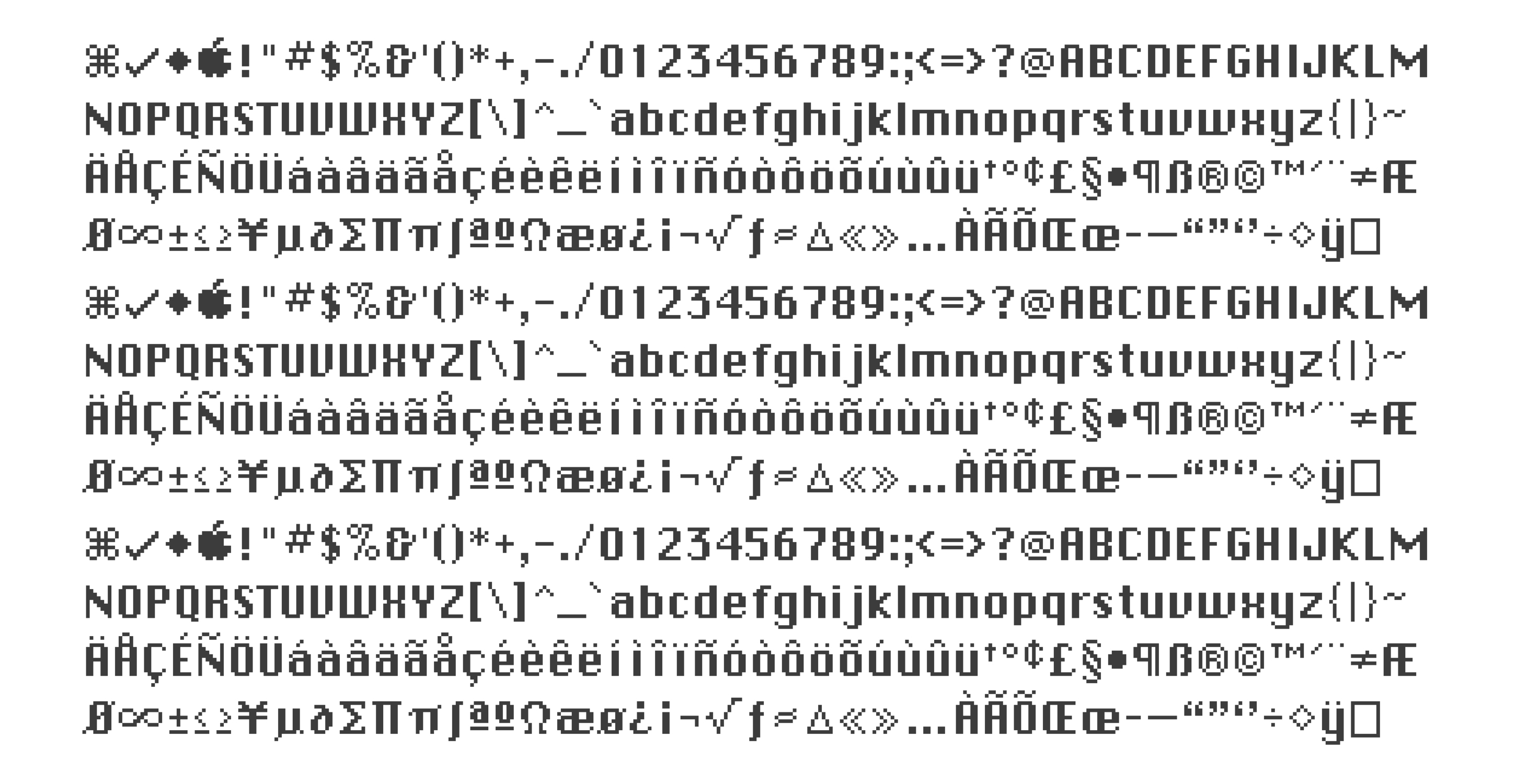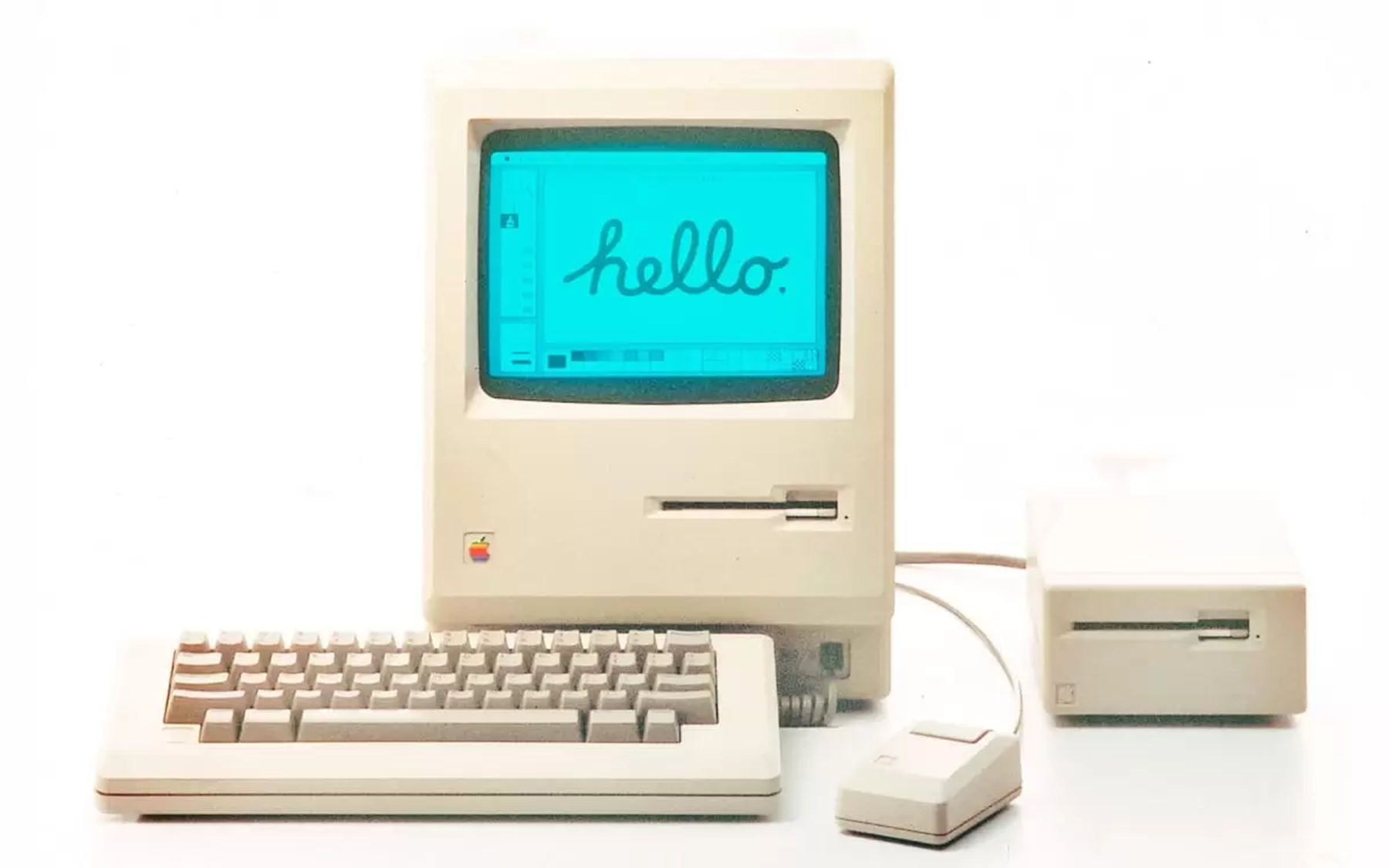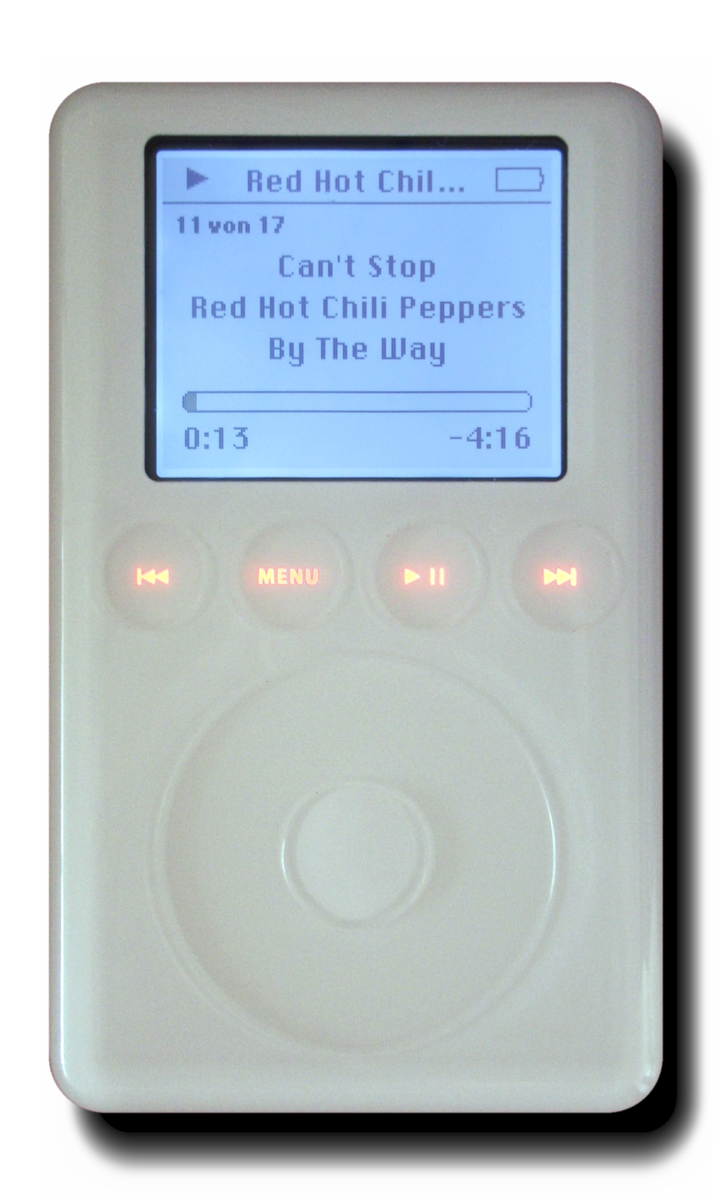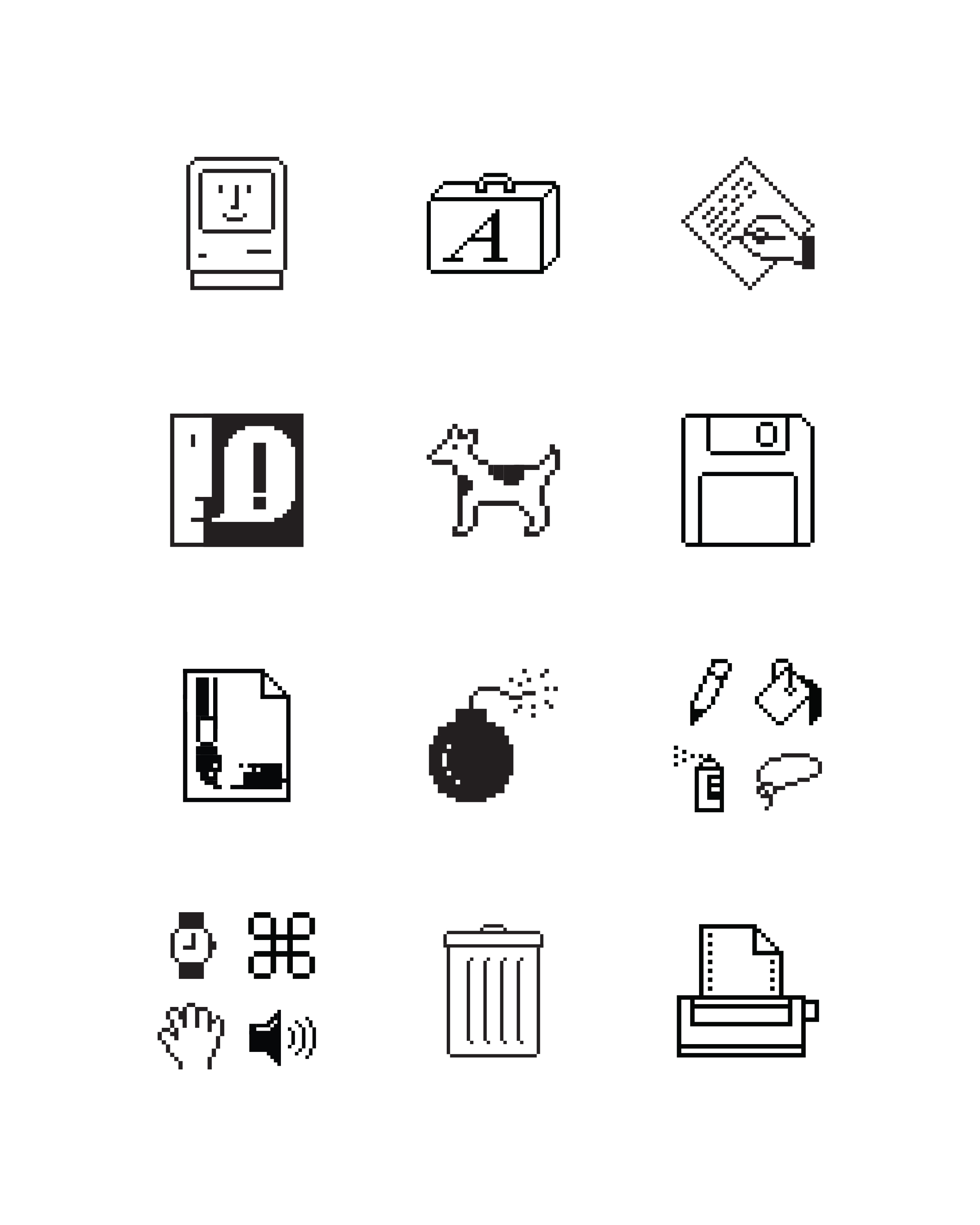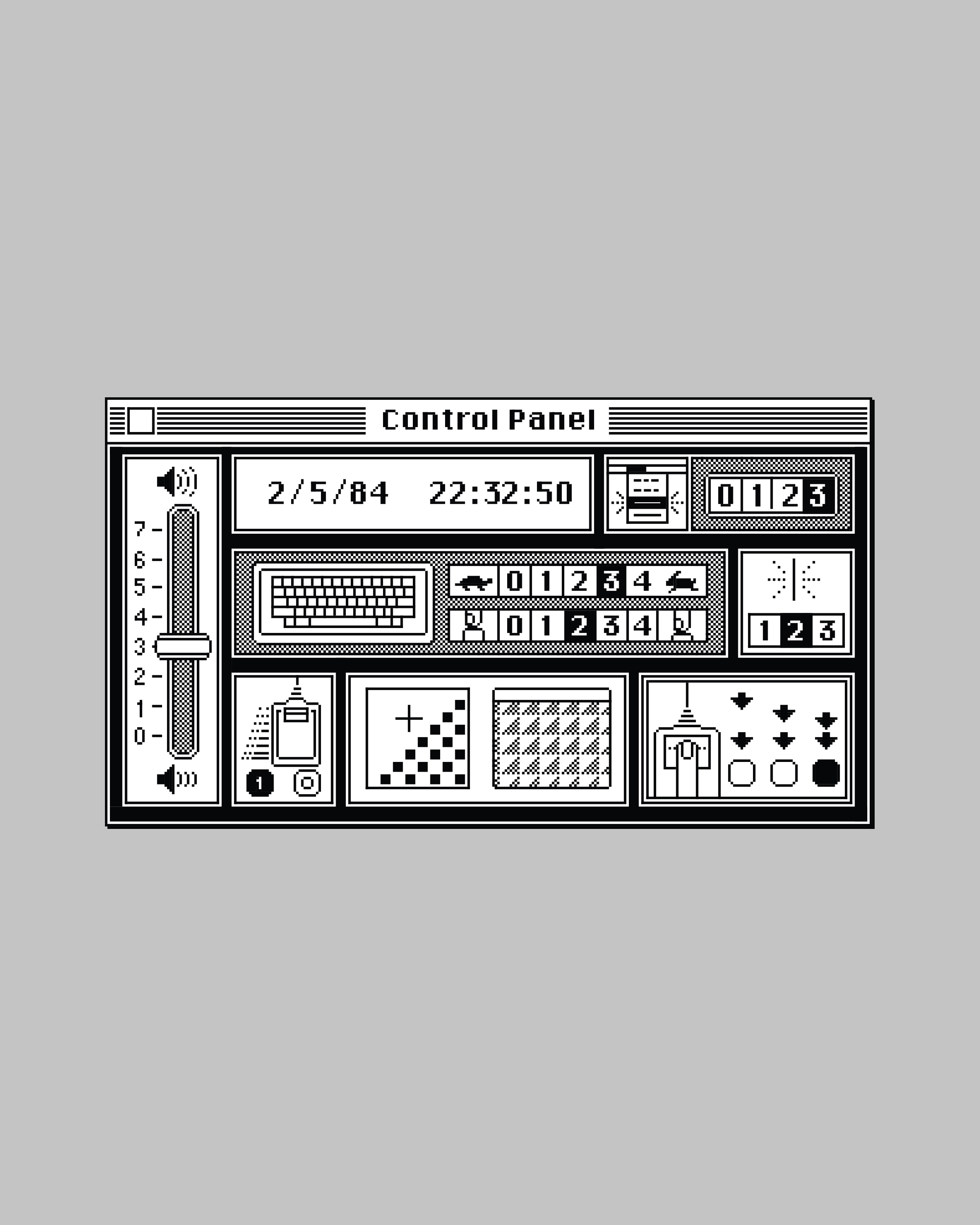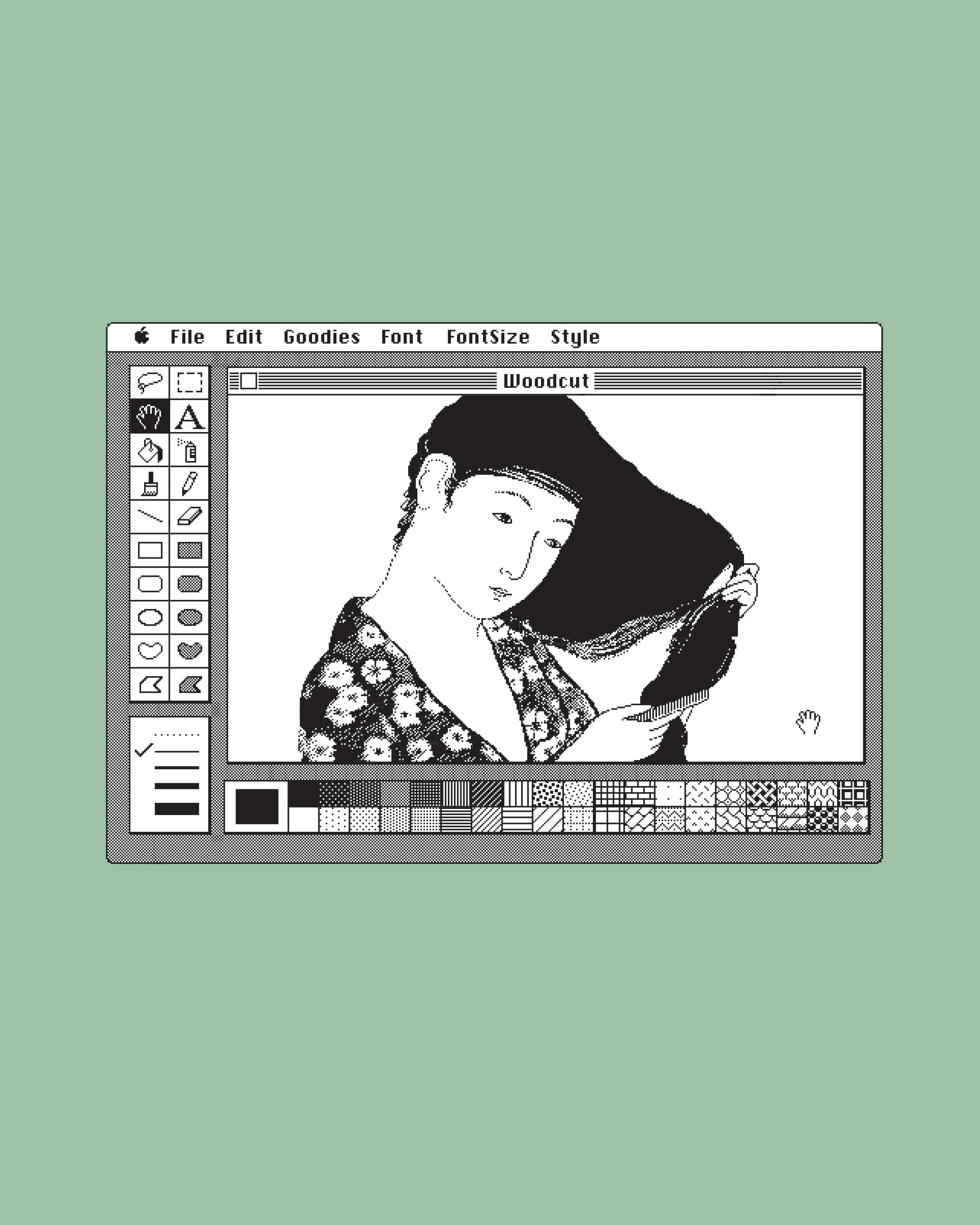
Susan Kare
Didn’t Care
(About Low Resolutions)
How the Chicago font
and Macintosh icons were created
We all know all the cute little smiling Macintosh icon. Or the Chicago font we all had on our first iPods. But how many of us know who we have to thank for those iconic Macintosh assets and how difficult creating something as simple as a small icon was back in 1984? Well, you all will after reading this article.
Becoming a Macintosh artist
The woman responsible for all that is Susan Kare, an American graphic designer and one of the first designers at Apple. After finishing her degree in arts and Ph.D. in fine art in 1978, Susan Kare started working at the Fine Arts Museums of of San Francisco as a curatorial fellow until one day she got a call from an old friend from high school. ↘ 1 Susan Kare. About: kare.com/about/. That friend was working as a developer for the first Apple Macintosh at that time and was looking for someone who could create graphics and a fonts for the operating system. He knew that Susan Kare was good at drawing small-scale mosaic-like images, but she had never designed typefaces. By reading all the typography books she could find in her library, she aced the interview and became a “Macintosh Artist”. ↘ 2 Susan Kare, Iconic Designer. Article: invention.si.edu/susan-kare-iconic-designer.
Creating new standards for screen typography
Unlike today, there were no best practices for display fonts in the early 80s. The few existing ones (like the Courier on Linux
Typeface “Courier” designed by Howard Kettler in 1956
and Microsofts Lucida Console) were monospaced and very jagged, due to the fixed pixels. And so Susan Kare started working on a new display font for the Macintosh, that would be crisper and more easily readable than any of the previous ones – the first proportional display typeface. ↘ 3 Apple fonts. A typographic timeline. Timeline: www.typeroom.eu/apple-fonts-a-timeline. To put everything into perspective: Nowadays, the display of a modern 14-inch Macbook Pro has around 3024×1964 pixels and supports around 1 Billion colors. The device Susan Kare designed for had a resolution and 512×342 pixels and only worked with black and white bitmap. The system font she was hired to design, was to be used for the menus of the interface and therefore had to be highly legible on a low-resolution and grayscale screen proved. With all that in mind, the Chicago ↘ 4 Chicago typeface. The Friendliness of Chicago. Article: slate.com/culture/2014/09/chicago-typeface-apple-computer-font-made-for-macintosh-and-used-on-ipod-felt-friendly.html. was created – a font that was proportionally spaced and looked more rounded, by only putting elements horizontally, vertically or diagonally and could also display “greyed out” text with deactivated pixels.
Typeface “Chicago” designed by Susan Kare in 1984
Typeface “Chicago” in use
As a pixel font, the Chicago only came in one size, 12pt, until it was vectorized by Bigelow & Holmes in 1991. Chicago was used until 1997 with Mac OS 8.0 on the Macintosh, the Portable and the Powerbook.
Original Macintosh “hello” bitmap for the computer 1984 introduction designed by Susan Kare
With the 2001 release of the iPod the font was revived and used again until the fourth generation due to its great readability at low resolutions.
Typeface “Chicago” used in the first generation of iPods
Designing for better user experiences
The next big challenge was creating the icons for the Macintosh’s interface. Back then, interfaces were mostly made of text and code which was not accessible to everyone. The mission of the Macintosh was to have a user-friendly device that could be used intuitively by anyone. It was a real challenge to come up with symbols for actions and items, that had never been visualized before with the restrictions of a small resolution screen. To design the Icons, Susan Kare used a gridded notebook and started scribbling icons in 32×32 “pixels”. She wanted the icons to be friendly and even a little funny, to ease stressed users. The icons she came up with in the end were a building block for many current icons, like the cursor, folders, trashcan, volume or even the “command” symbol. ↘ 5 The Woman Who Gave the Macintosh a Smile. Article: www.newyorker.com/culture/cultural-comment/the-woman-who-gave-the-macintosh-a-smile.
Icons from the original Macintosh computer user interface designed by Susan Kare
Although many people don’t know Susan Kare, she was the one who gave the first Macintosh its face and its first user interface graphics.